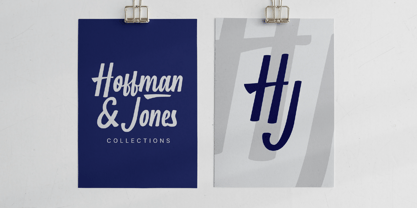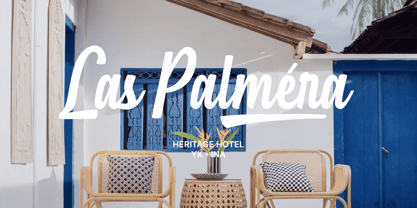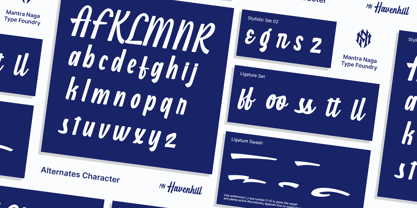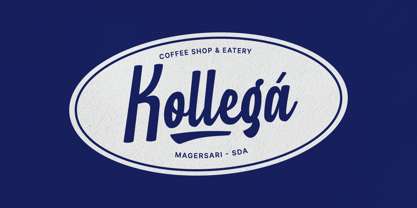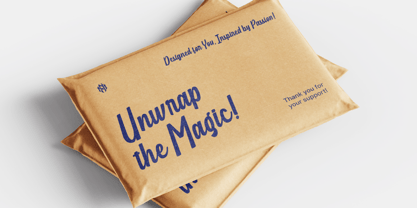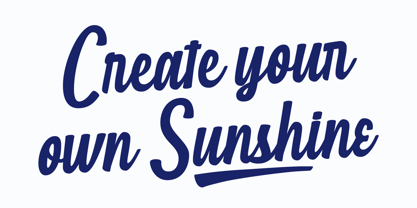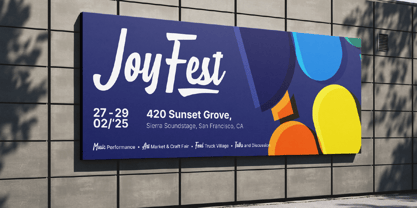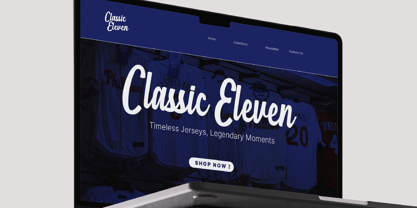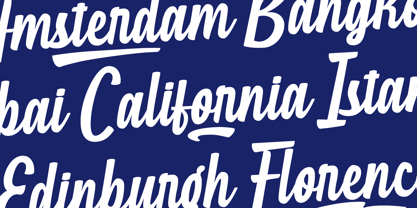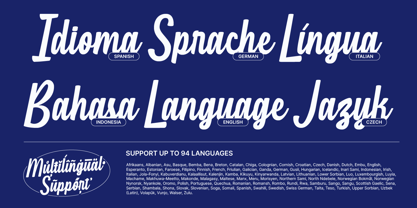
MN Havenhill
by Mantra Naga Studio
The MN Havenhill Font Family was designed by Fredo Eka Pratama and published by Mantra Naga Studio. MN Havenhill contains 1 styles.
MN Havenhill is a handwritten script typeface designed to bring an authentic, hand-drawn look to your projects. With smooth, organic strokes, this font is ideal for branding, logotypes, packaging, event banners, and other display design needs.
Built for versatility, MN Havenhill supports 94 languages and includes 2 stylistic set alternates, a complete ligature set, and ligature swashes, giving designers the flexibility to create unique and dynamic typography. Whether for logo design, product packaging, or promotional materials, MN Havenhill provides a handwritten touch that enhances visual identity while ensuring readability.
Perfect for designers looking for a modern script font with a natural feel, MN Havenhill is a reliable choice for various creative projects.